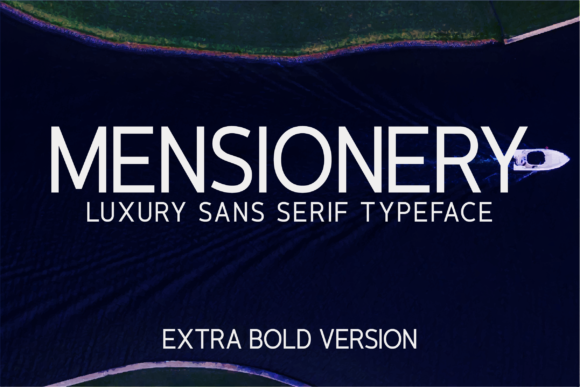
Mensionery Extra Bold Font
Presenting Mensionery Extra Bold, a typographic masterpiece that transcends the ordinary, inviting you to a world of boundless creativity. This meticulously crafted sans serif font, the brainchild of Huntype, exudes a timeless elegance, capturing the essence of minimalism with its clean lines and confident strokes.
Mensionery Extra Bold is more than just a font; it's an experience that ignites your imagination and empowers you to craft designs that resonate with your audience. Its all-caps structure lends an air of authority and sophistication, making it the perfect choice for headlines, logos, posters, and any project demanding attention.
With ten distinct weights ranging from delicate Hairline to the assertive Black, Mensionery Extra Bold offers a versatility that adapts seamlessly to your creative vision. Whether you seek a subtle touch of refinement or a bold statement that commands attention, this font rises to the occasion, delivering impact without sacrificing readability.
Step into the realm of Mensionery Extra Bold and discover a font that elevates your designs to new heights. Its timeless appeal ensures that your creations remain relevant and captivating, transcending trends and fads. Embrace the allure of minimalism and let Mensionery Extra Bold guide you towards design excellence.